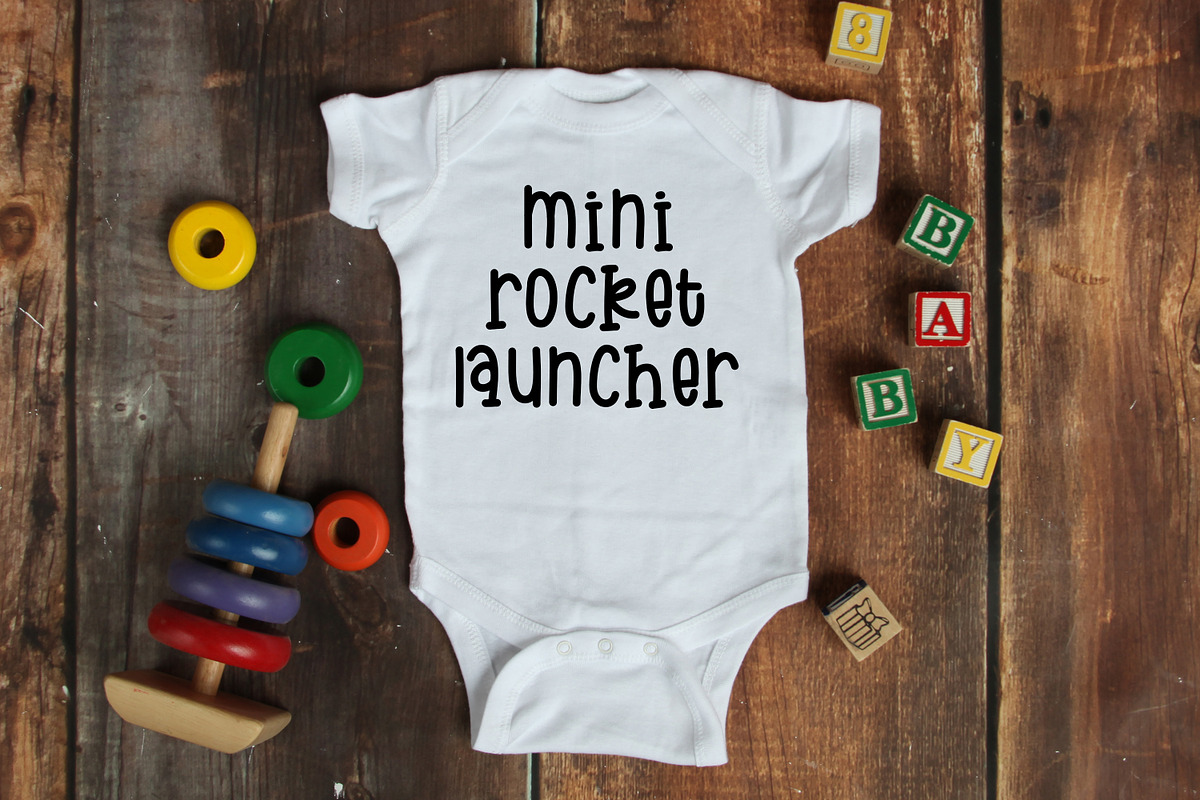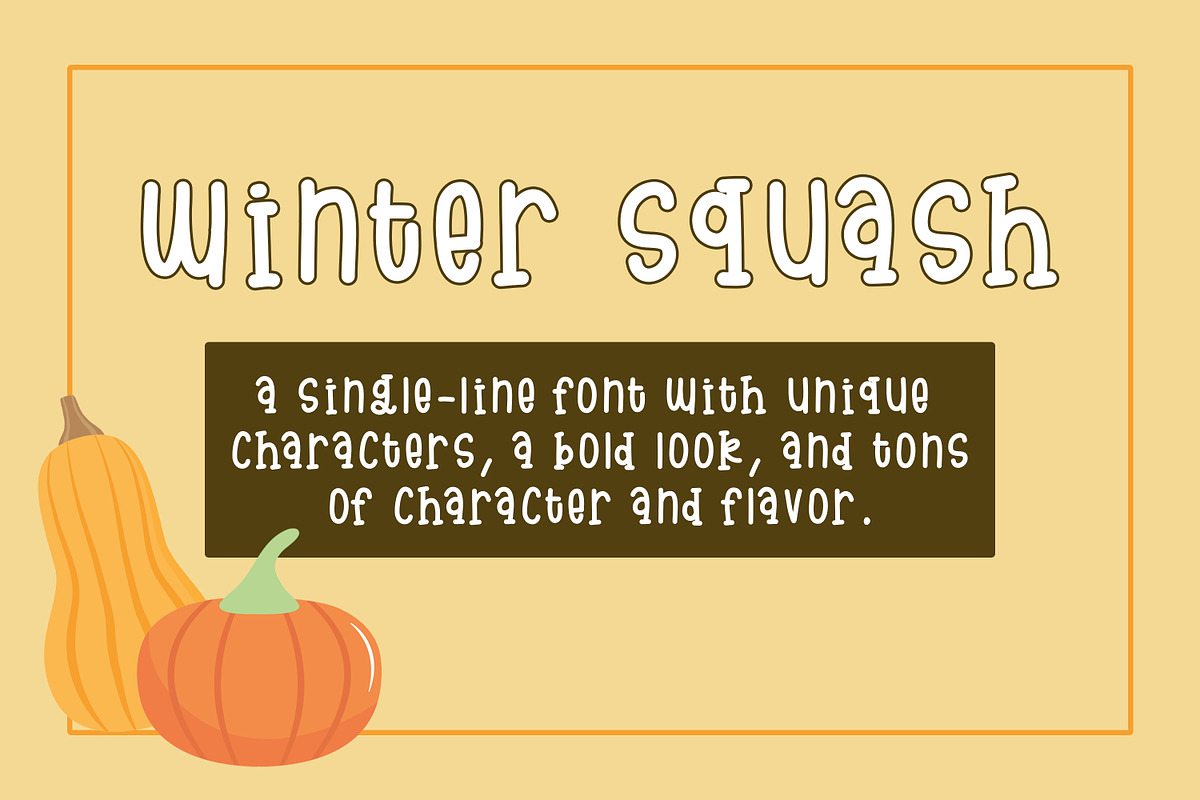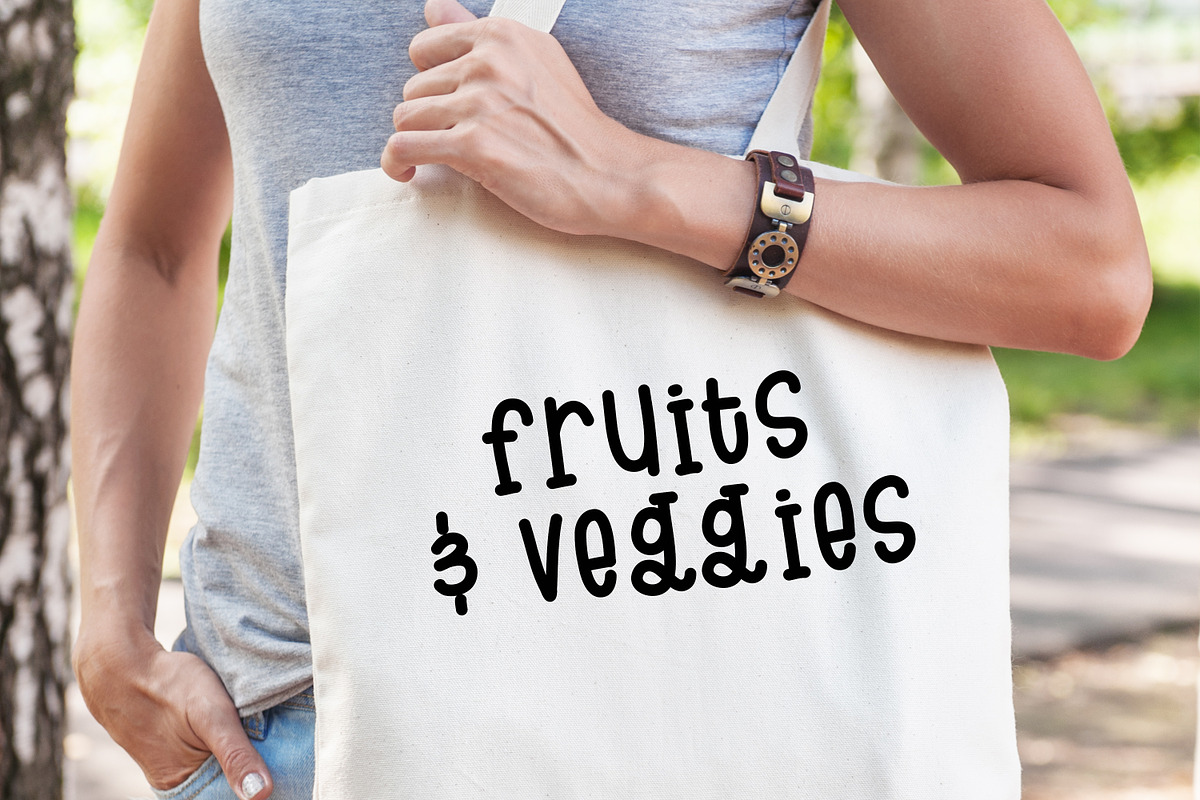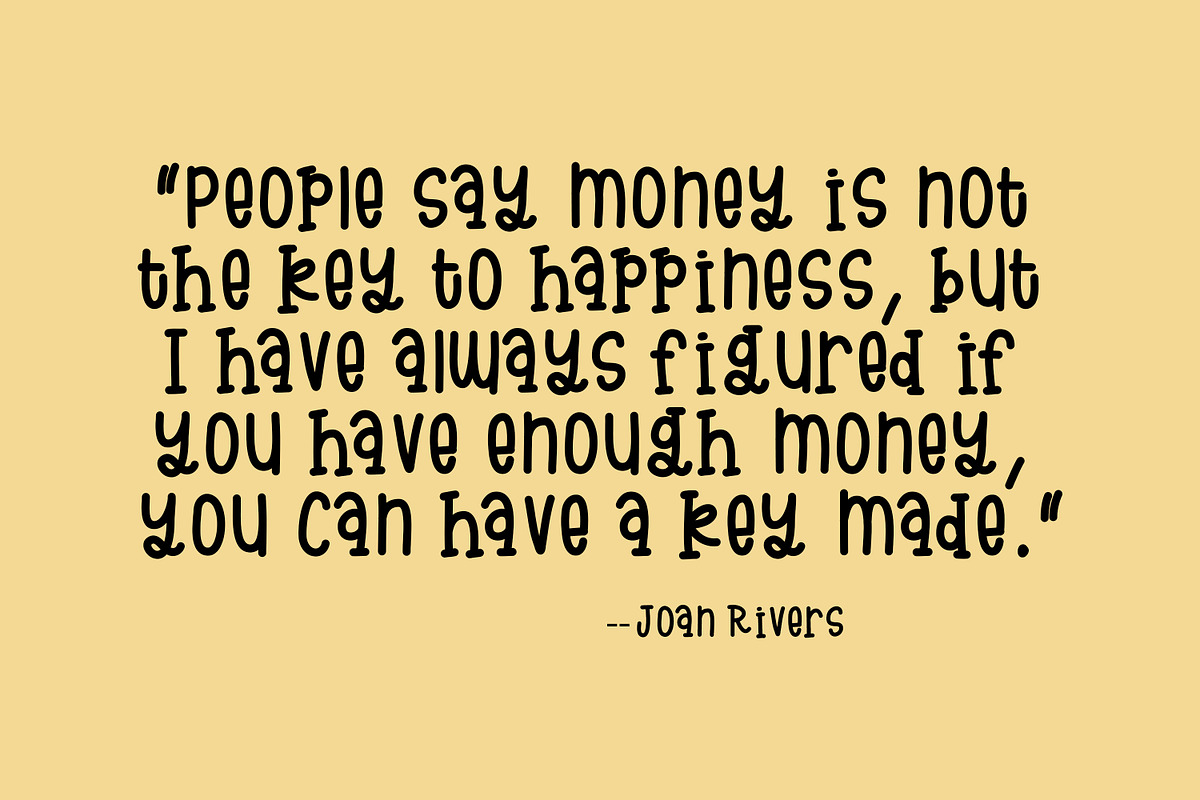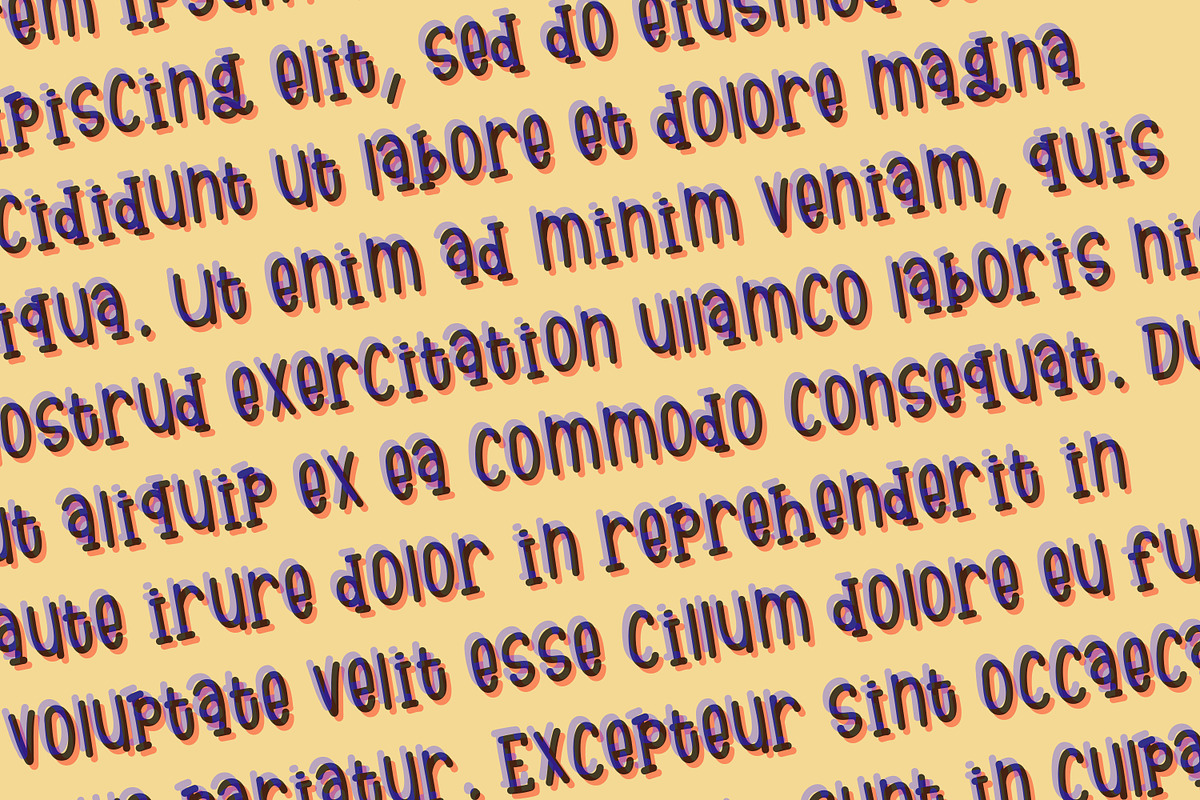
Winter Squash | A quirky Slab-Serif
Winter Squash is a cute, girly feminine font with multilingual support and mixed-case letters that is perfect for:
- greeting cards
- invitations
- posters
- t-shirt designs
- SVG Designs
And more...